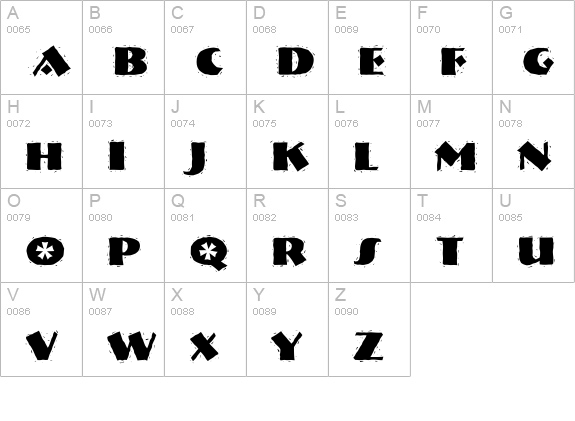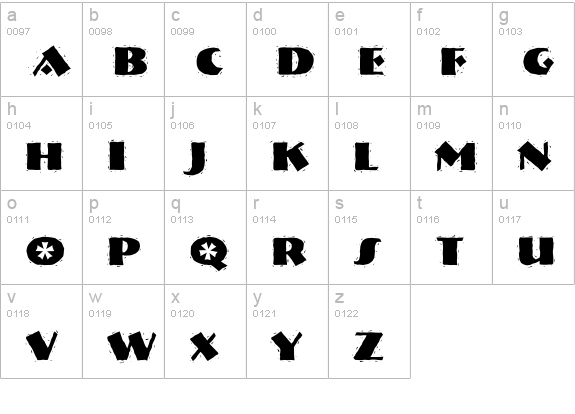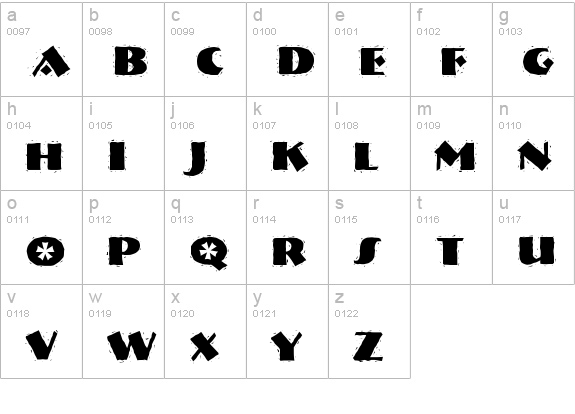
NervouzReich Rank Font Details
NervouzReich Rank font is a stunning display typeface that exudes elegance and sophistication. With its intricate details and unique design, this font is perfect for adding a touch of luxury to any project. The NervouzReich Rank font is versatile and can be used for a wide range of design applications, from logos to branding to editorial design. What sets the NervouzReich Rank font apart is not only its striking appearance but also the fact that it is available for free download at FontsMarket.com. This means that you can elevate your designs without having to worry about breaking the bank. Whether you are a seasoned designer or just starting out, the NervouzReich Rank font is a valuable addition to your font library. Embrace the beauty and elegance of the NervouzReich Rank font and take your designs to the next level. Download it for free today at FontsMarket.com and let your creativity soar.